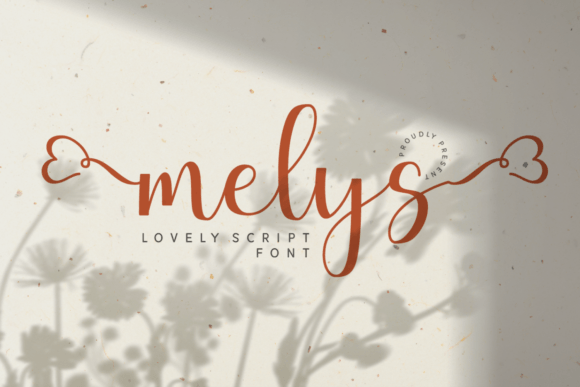
Melys Font
Introducing Melys Font, a graceful script font that will leave you breathless with its delicate charm. This modern calligraphy typeface exudes elegance and romance, adding an enchanting touch to your creative projects. Melys is more than just a font; it's an artistic expression that captures the essence of beauty and finesse.
Indulge in the world of Melys, where every letter dances with grace and fluidity, creating a symphony of visual harmony. This thin and elegant font invites you to explore your creativity, transforming ordinary words into breathtaking masterpieces. With its authentic calligraphic style, Melys effortlessly adds a touch of sophistication and charm to any design.
Envision your wedding invitations adorned with Melys's flowing script, carrying the promise of love and joy. Imagine your logos and branding radiating an air of timeless elegance, leaving a lasting impression on your clients. Let Melys guide you as you craft exquisite cards, watermarks, and stationery that exude a sense of occasion.
Melys is more than just a font; it's a versatile tool that unlocks a world of creative possibilities. Its delicate strokes and flourishes lend a romantic touch to quotes and posters, turning words into art. Unleash your inner artist and explore the limitless potential of Melys, creating designs that captivate and inspire.
Embrace the versatility of Melys, a font that effortlessly adapts to a myriad of creative visions. Its PUA encoding grants you access to a treasure trove of glyphs and swashes, empowering you to add intricate details and flourishes to your designs with ease. Melys invites you to play, experiment, and let your imagination soar.